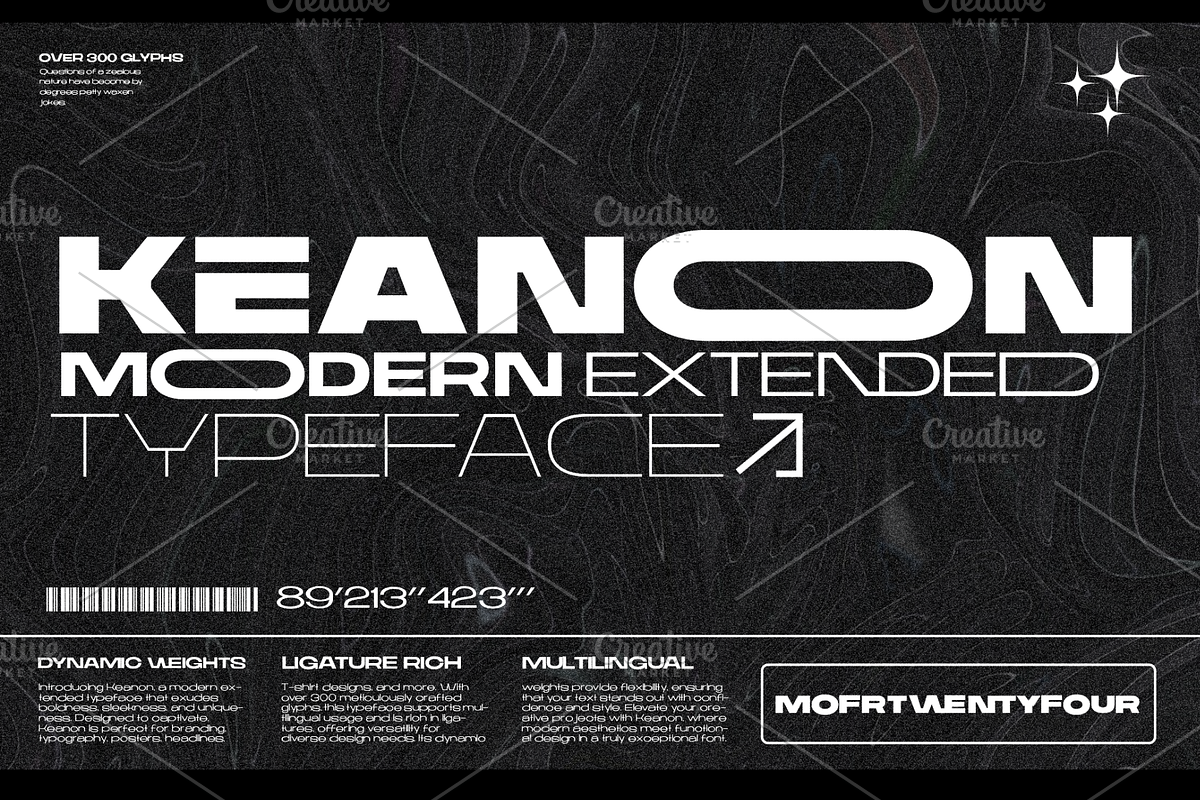
Keanon is a bold and modern extended typeface designed to make a statement. Whether you're working on sleek branding, impactful headlines, or eye-catching web designs, Keanon’s wide-set characters and clean lines deliver a contemporary feel that grabs attention. Its unique geometry and spacing make it perfect for digital and print media alike.
Designers love Keanon for its versatility across various design projects. From tech startups to fashion campaigns, this font adds a sophisticated edge that feels both fresh and timeless. With its professional aesthetics and strong visual presence, Keanon elevates any creative project.